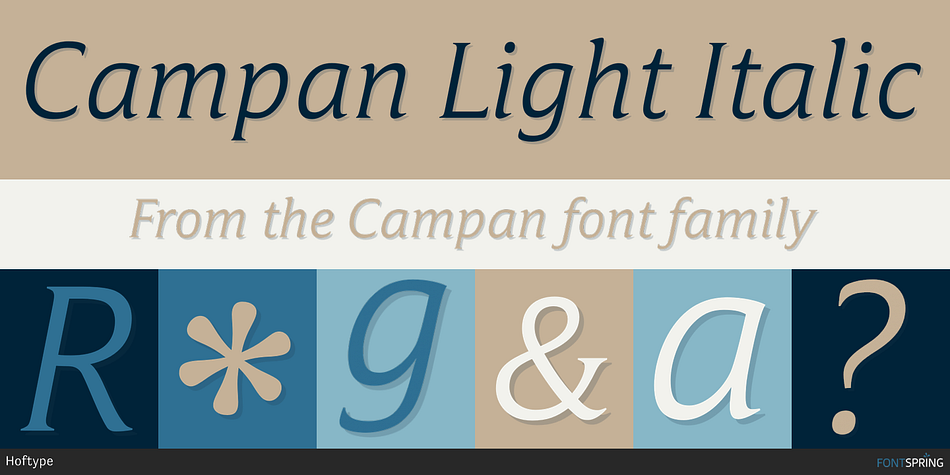
Campan Light Italic
Campan is a serif font family. This typeface has twelve styles and was published by Hoftype.
Campan, is a new semi-linear face which unites mono-line and classic elements.
Campan, is a new semi-linear face which unites mono-line and classic elements. It is very strong in headlines and its tall x-height lends itself to comfortable reading in text applications.
The Campan family comprises 12 styles and is well suited for ambitious typography. It comes in OpenType format with extended language support. All weights contain ligatures, small caps, proportional lining figures, tabular lining figures, proportional old style figures, lining old style figures, matching currency symbols, fraction- and scientific numerals and matching arrows.